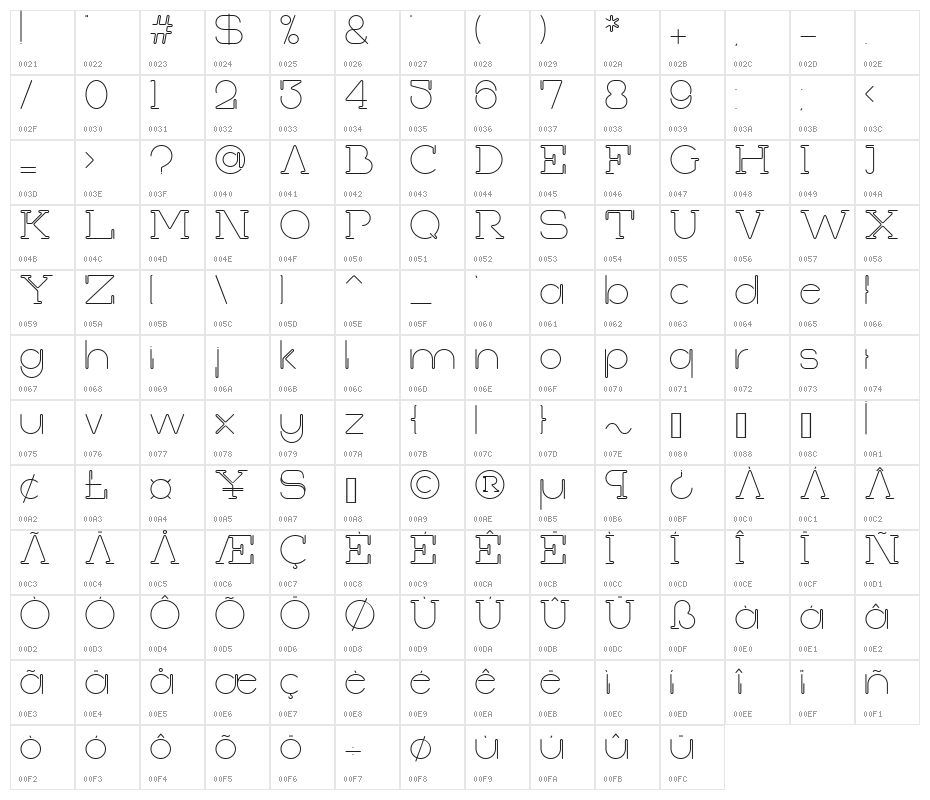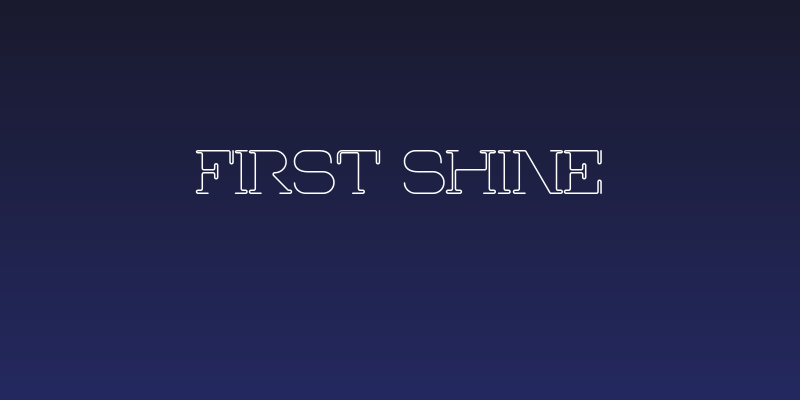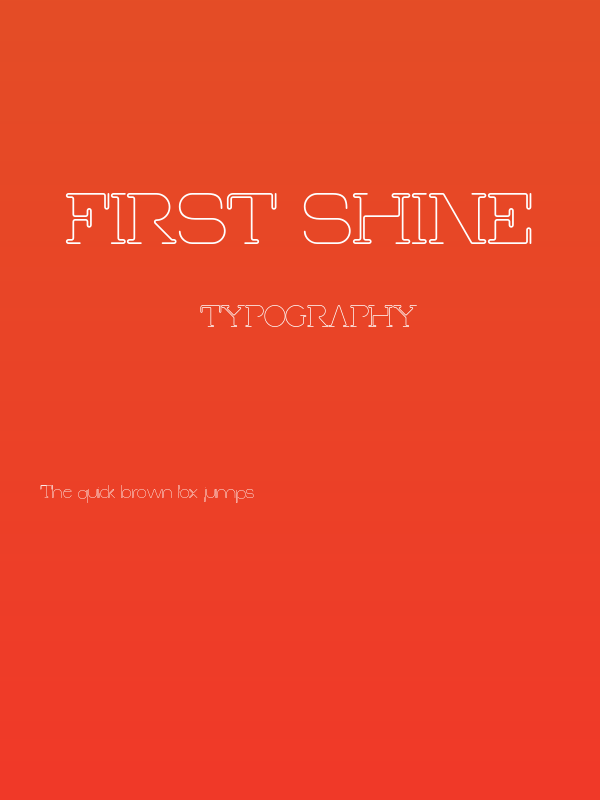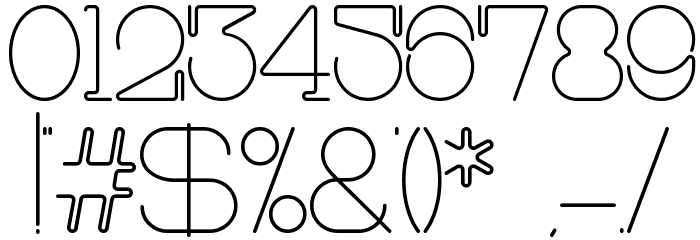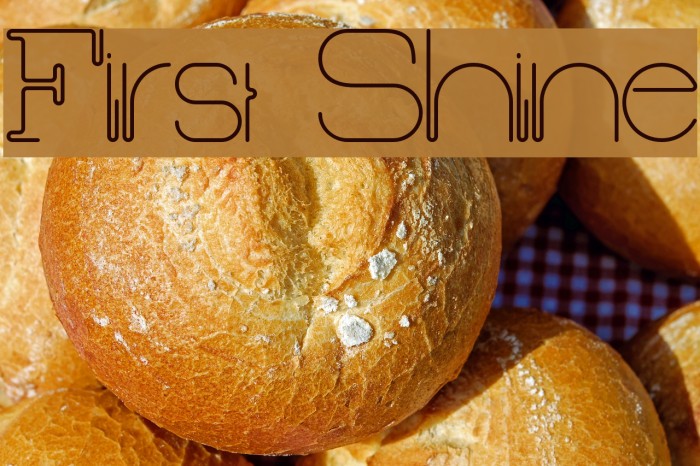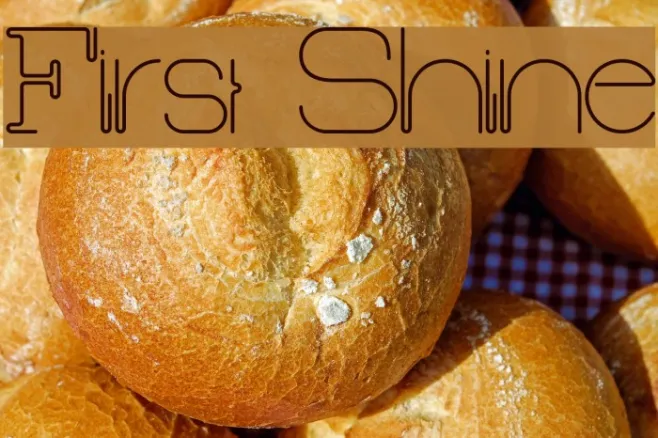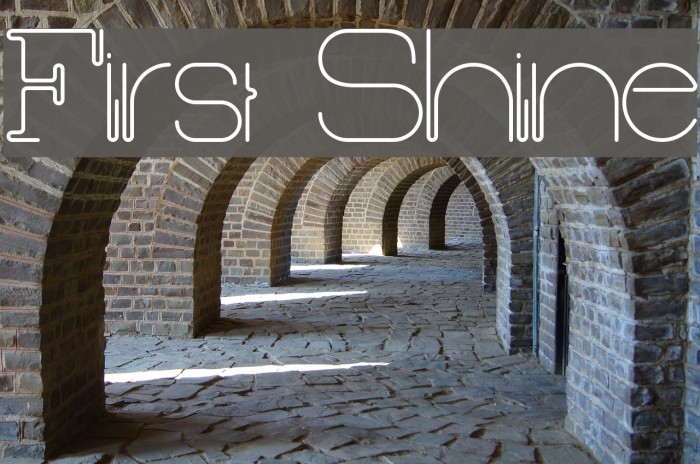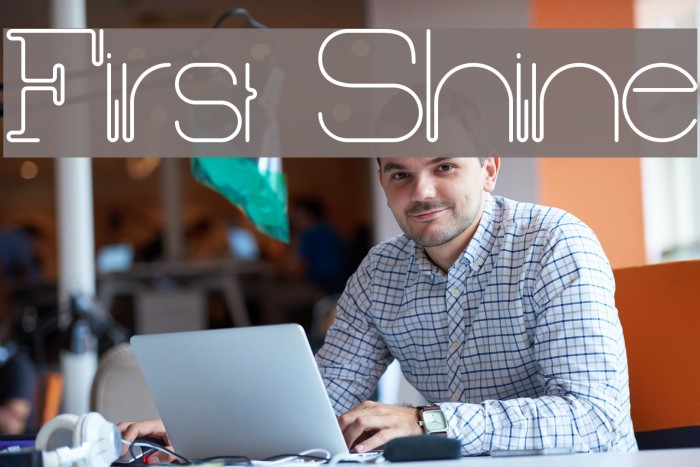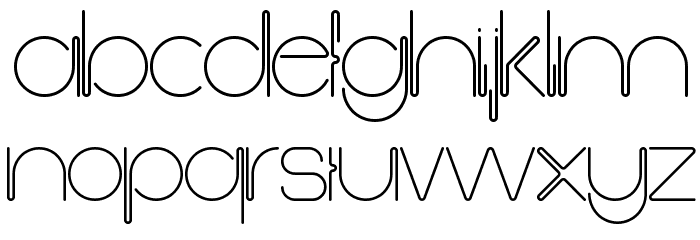
First Shine Font
First Shine Description
This font features a unique and modern design with a hollow, outlined style that gives it a futuristic and airy appearance. The characters are constructed with a consistent line weight, creating a uniform look across both uppercase and lowercase letters. The geometric shapes and clean lines contribute to its contemporary aesthetic, making it stand out in any design project. The numerals and special characters maintain the same outlined style, ensuring a cohesive look throughout. This font is ideal for projects that require a modern and innovative touch, such as tech-related branding or futuristic themes.
| Proposed Projects | Ideal for tech branding, futuristic themes, and innovative design projects. |